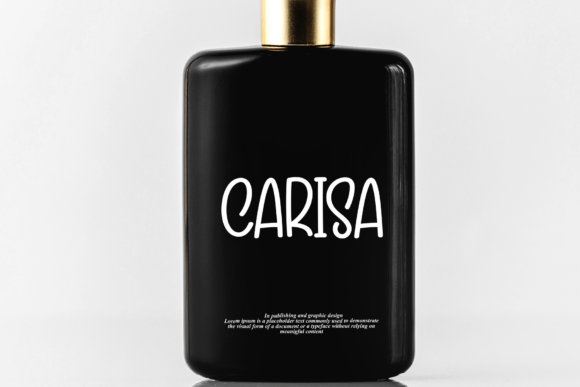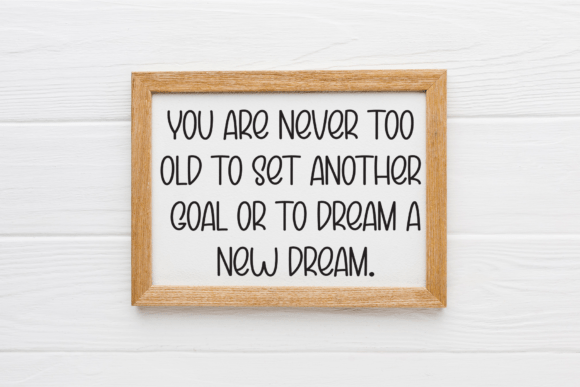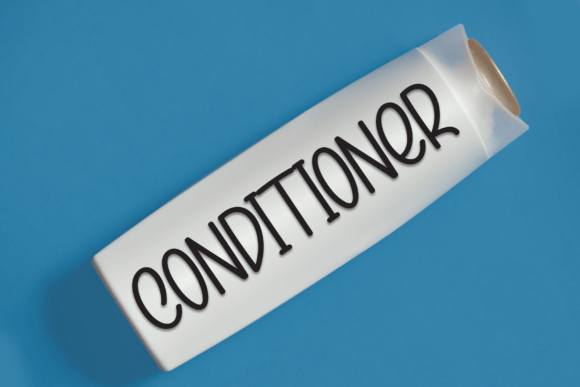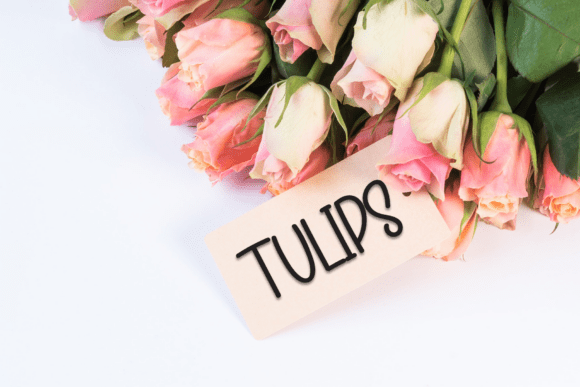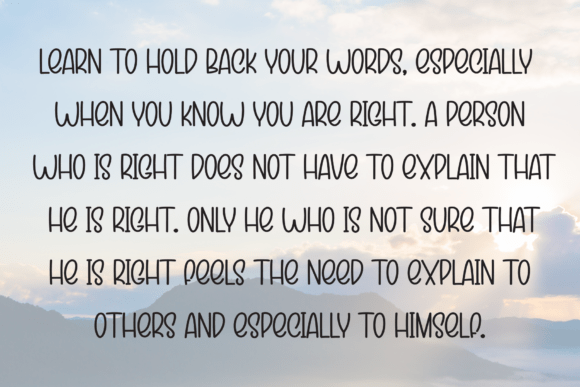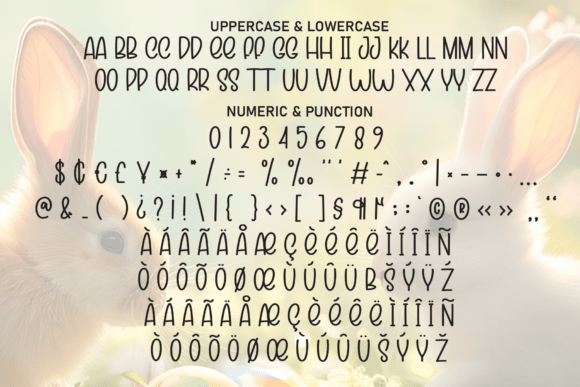
Bunny Spring Font: Adding a Touch of Personality to Your Designs
In the world of typography, few fonts manage to capture the essence of real handwriting while still being bold and eye-catching. Bunny Spring Font is one such gem that bursts with personality and charm, making it a perfect addition to any design project that calls for a personal, expressive touch.
What is Bunny Spring Font?
Bunny Spring Font is a display handwritten font that is designed to stand out while maintaining a natural flow. Its bold, eye-catching strokes are reminiscent of real handwriting, giving it an authentic and relatable feel. This font is perfect for designers and crafters who want to add a touch of warmth and personality to their designs.
Key Features of Bunny Spring Font
- Handwritten with love: Bunny Spring Font is crafted with love and care to mimic the natural flow of handwriting. Its strokes are bold and expressive, making it perfect for designs that require a personal touch.
- Perfect for display text: This font is designed to stand out, making it ideal for display text, logos, social media graphics, posters, and other designs that require a bold and eye-catching font.
- Authentic and relatable: Bunny Spring Font brings authenticity and flair to your design, making it perfect for crafting heartfelt quotes, branding creative products, and more.
- Easy to read: Despite its bold strokes, Bunny Spring Font is easy to read, making it perfect for designs that require a clear and concise message.
Use Cases for Bunny Spring Font
Bunny Spring Font is a versatile font that can be used in a variety of design projects. Here are some use cases where this font shines:
- Logos: Bunny Spring Font is perfect for creating unique and memorable logos that require a personal touch.
- Social media graphics: This font is ideal for creating eye-catching social media graphics that require a bold and expressive font.
- Posters: Bunny Spring Font is perfect for creating posters that require a clear and concise message with a personal touch.
- Branding: This font is great for branding creative products, such as handmade crafts, artisanal foods, and more.
- Quotes and typography: Bunny Spring Font is perfect for crafting heartfelt quotes and typography that require a personal and expressive touch.
Tips for Using Bunny Spring Font
Here are some tips for using Bunny Spring Font in your design projects:
- Use it sparingly: Bunny Spring Font is a bold font, so use it sparingly to avoid overwhelming your design.
- Pair it with a neutral font: Pair Bunny Spring Font with a neutral font to create contrast and visual interest.
- Experiment with colors: This font looks great in a variety of colors, so experiment with different colors to find the perfect fit for your design.
- Pay attention to spacing: Make sure to pay attention to spacing when using Bunny Spring Font to ensure that your design looks clean and visually appealing.
Bunny Spring Font is a unique and expressive font that adds a touch of personality and charm to any design project. Its bold, eye-catching strokes and natural flow make it perfect for designs that require a personal touch. Whether you’re a designer or crafter, this font is sure to become a favorite in your toolkit.